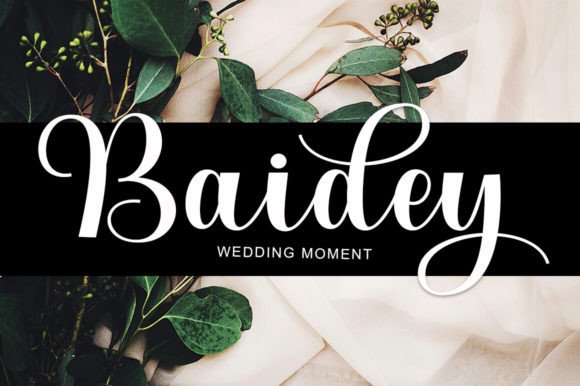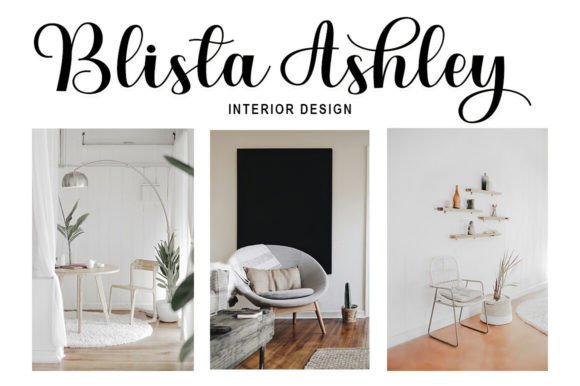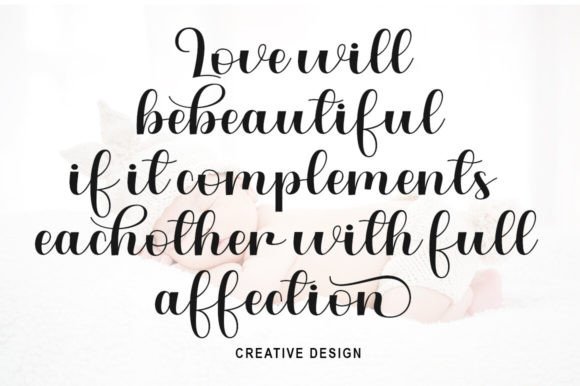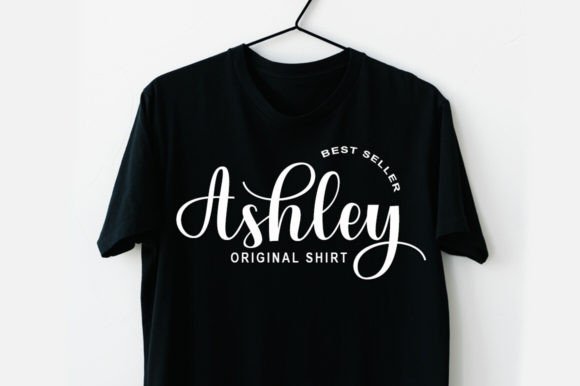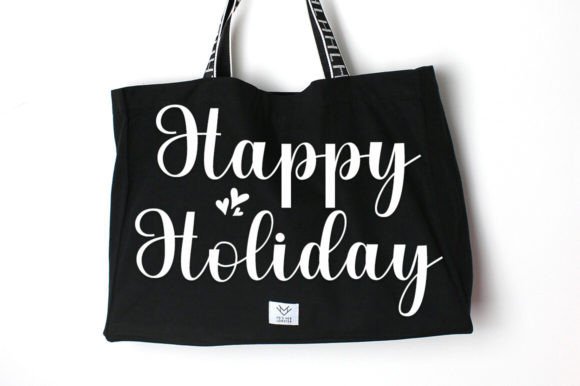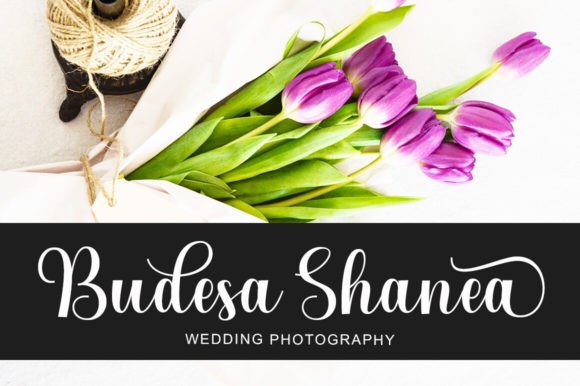
Elya Font: Elevate Your Designs with Elegance and Sophistication
Are you looking for a font that exudes elegance, sophistication, and a touch of modernity? Look no further than Elya Font, a beautiful handwritten font that is sure to take your designs to the next level. With its varied baselines, smooth lines, stunning glyphs, and gorgeous alternates, Elya is the perfect choice for designers and crafters who want to add a touch of class and refinement to their projects.
The Characteristics of Elya Font
Elya Font is a truly unique and special font that boasts a range of characteristics that set it apart from other fonts. Some of its key features include:
- Varied Baselines: Elya’s baselines vary in width and depth, giving the font a sense of movement and fluidity that is both visually appealing and engaging.
- Smooth Lines: The font’s lines are smooth and flowing, creating a sense of elegance and sophistication that is perfect for high-end designs.
- Beautiful Glyphs: Elya’s glyphs are intricate and detailed, adding an extra layer of beauty and interest to the font.
- Stunning Alternates: The font comes with a range of alternate characters, allowing you to add even more variety and creativity to your designs.
The Inspiration Behind Elya Font
Elya Font is inspired by the art of calligraphy, with a modern and contemporary twist. The font’s creator has drawn on the classic techniques of calligraphy to create a font that feels both traditional and fresh. The result is a font that is both elegant and sophisticated, yet also modern and edgy.
Using Elya Font in Your Designs
Elya Font is incredibly versatile, and can be used in a wide range of design projects, from:
- Logos and Branding: Elya’s elegant and sophisticated feel makes it perfect for logos and branding projects that require a touch of class and refinement.
- Wedding Invitations: The font’s beautiful and intricate details make it ideal for wedding invitations and other formal event materials.
- Packaging Design: Elya’s modern and edgy feel makes it perfect for packaging design projects that require a touch of sophistication and elegance.
- Digital Marketing: The font’s clean and legible lines make it perfect for digital marketing projects, such as social media graphics and email marketing campaigns.
Why Choose Elya Font?
So why choose Elya Font for your next design project? Here are just a few reasons why:
- Unique and Exclusive: Elya Font is a unique and exclusive font that will help your designs stand out from the crowd.
- Elegant and Sophisticated: The font’s elegant and sophisticated feel makes it perfect for high-end designs that require a touch of class and refinement.
- Modern and Fresh: Elya’s modern and fresh feel makes it perfect for designs that require a touch of contemporary style.
- Easy to Read: The font’s clean and legible lines make it easy to read, even at small sizes.
In conclusion, Elya Font is a truly special font that is sure to elevate your designs to the next level. With its elegant and sophisticated feel, modern and fresh style, and range of beautiful glyphs and alternates, Elya is the perfect choice for designers and crafters who want to add a touch of class and refinement to their projects. So why wait? Fall in love with Elya Font today, and take your designs to the highest level!